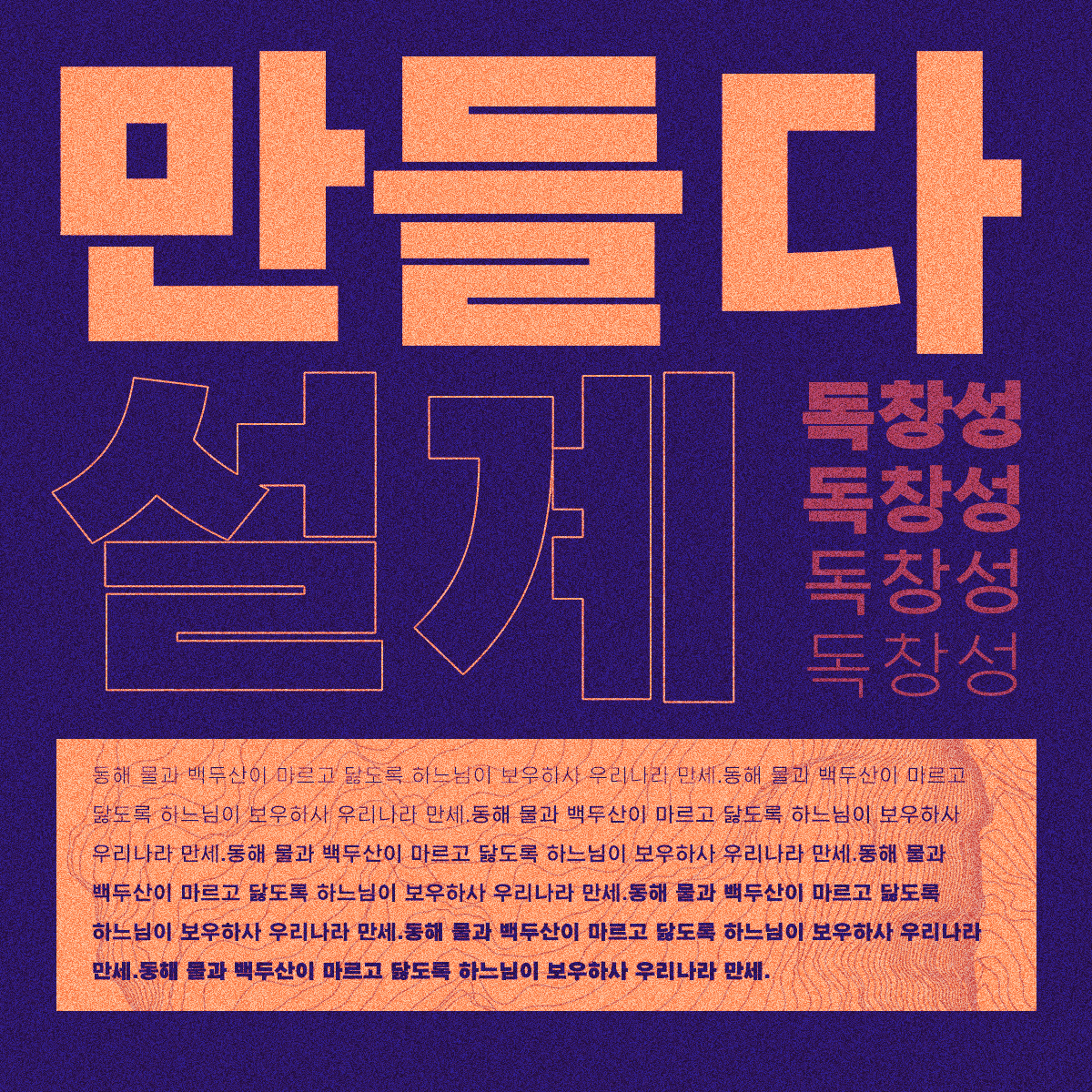
- UD SHIN GO -
CJK FONT FAMILY
What's a CJK font you ask? Simply put, CJK stands for Chinese (Traditional and Simplified), Japanese, and Korean fonts. CJK fonts are a game changers for brands and creatives that desire to establish a unified typeface across Latin and Asian based languages. Morisawa USA is excited and proud to provide our clients with exceptional and one-of-a-kind CJK font solutions.
MEET UD SHIN GO
A CJK font family crafted by Morisawa, UD SHIN GO is a san serif CJK font family created Morisawa available Traditional Chinese, Simplified Chinese, Japanese and Korean in a variety of font weights for all 3 languages. This beautiful crafted font family allows your type to speak to your audience with the same visual language and nuances while highlighting uniquenesses in each. If you were wondering what UD stands for universal design, meaning that this typeface prioritizes excellent legibility and readability.
UD SHIN GO & CJK FONTS
SIMPLIFIED CHINESE
Total Glyphs: 116,256
Total Weights WEIGHTS 4
TRADITIONAL CHINESE
Total Glyphs: 76,624
Total Weights: 4
JAPANESE
Total Glyphs: 184,463
Total Weights: 8
KOREAN
Total Glyphs: 146,816
Total Weights: 8